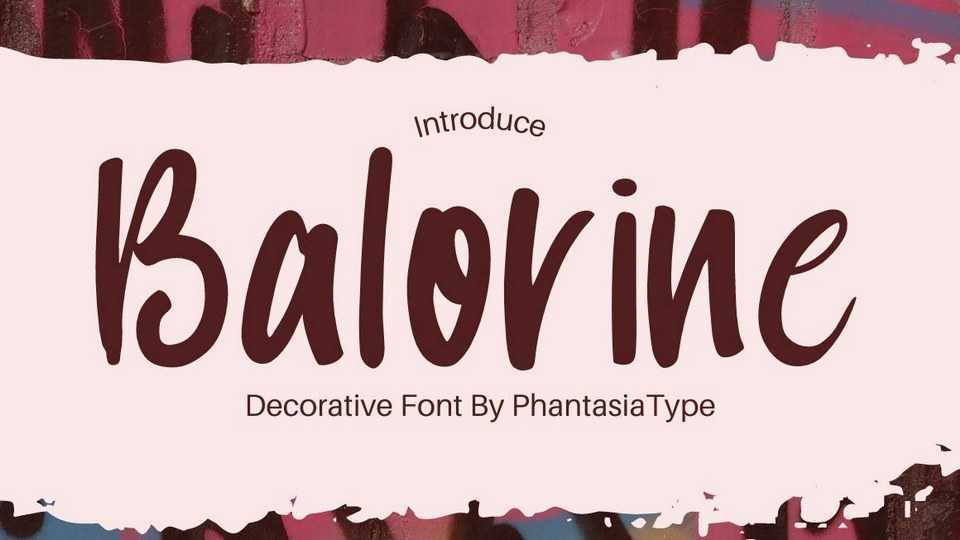
Download Balorine font, a decorative handwritten typeface with a fun and playful vibe. Balorine is perfect for crafts, notes, quotes, social media and other projects with a personal touch.
Designer: Phantasia Type